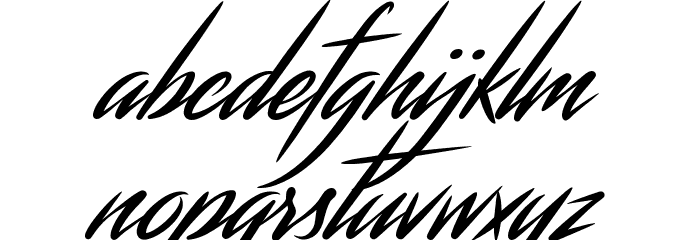
Streamster Font
This font features a dynamic and energetic script style, characterized by its fluid, sweeping strokes and sharp, angular edges. The uppercase letters are tall and slender, with a distinct slant that adds a sense of movement and speed. The lowercase letters maintain the same slant, with some characters extending below the baseline, enhancing the font's lively appearance. The numerals are consistent with the overall style, featuring elongated forms and sharp angles. Special characters are integrated seamlessly, maintaining the font's cohesive and expressive look. This font's high contrast between thick and thin strokes adds to its dramatic and eye-catching appeal.
A dynamic script font with fluid, angular strokes and high contrast.
- Proposed Projects: Ideal for branding, advertising, and poster design where a bold, energetic statement is needed.
- Category: Script
- Italic: Yes
- Character Spacing: Tight
- Use Case: Logos, Headlines, Posters